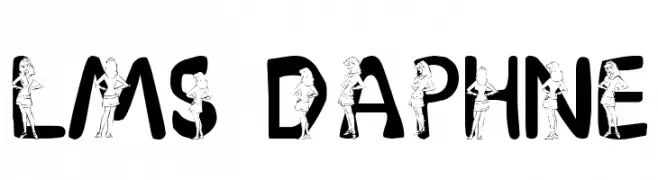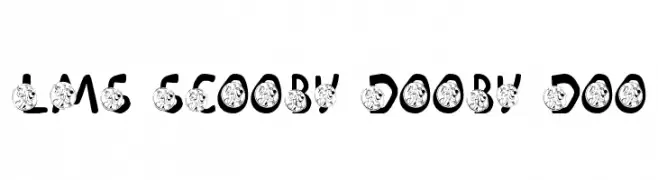
An abstract, geometric font with constructivist influences, enclosed in circular forms.
A decorative font featuring dynamic silhouettes interacting with frames.
A bold, playful font with a hand-drawn, whimsical style.
A whimsical and decorative font featuring cartoonish, creature-like characters.
Illustrative display font featuring superhero women in action poses.
A classic serif typeface with elegant and traditional design elements.
A pictogram-based decorative font with tribal and prehistoric motifs.
A decorative font inspired by ancient Mesoamerican art, featuring intricate and bold glyphs.
Intricate, glyph-inspired font with detailed, decorative characters.
A decorative and abstract font inspired by ancient art and tribal motifs.
A decorative font inspired by prehistoric cave paintings with unique pictograms.
A playful, prehistoric-themed illustrative font with cartoonish characters.
A bold, geometric font with a historical and architectural style.
A playful, handwritten font with tall, narrow letters and uneven strokes.
A graceful and fluid handwritten font with elegant, dynamic strokes.
A decorative Halloween-themed font with playful, cartoonish illustrations.
A conceptual display font using peace symbols, question marks, and 'think!' in circles.
Abstract geometric symbol set with bold circular enclosures.
A graceful, handwritten script font with elegant, flowing strokes.
An angular, primitive font with a tribal aesthetic.
A bold, geometric font with a 3D block design and angular structure.
Ornate celestial icons with a vintage, mystical style.
Cartoon dingbat font with luck-themed illustrations.
Illustrative font with beauty and makeup pictograms.
A pictogram font depicting professions through silhouette illustrations.
A playful, casual handwritten font with smooth, flowing curves.
Cartoonish superhero-themed decorative font with illustrated character glyphs.
A bold, modern font with geometric elements and strong presence.
A bold, angular font with a modern and edgy style.
Whimsical pictogram font with abstract and stick-figure characters.
A bold, geometric font with sharp angles and a dynamic style.
A decorative Halloween-themed font with each character as a unique illustration.